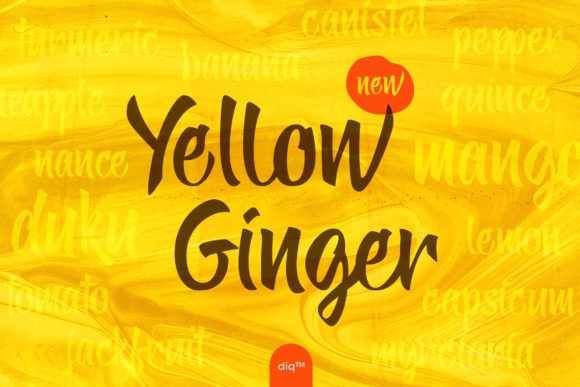
Prepare to be mesmerized by Yellow Ginger, a script font with an enchanting handwritten style. Its sharp lines and beautiful flow add a dash of sophistication to any design, making it the perfect choice for headers, signs, restaurant menus, product labels, prints, branding, and captivating social media posts.
Yellow Ginger's crisp, clear style ensures effortless readability, even at smaller sizes. Its elegant curves and playful flourishes bring a touch of vibrancy to your designs and leave a lasting impression on your audience. Whether you're creating a classy wedding invitation or a trendy flyer, Yellow Ginger will add a touch of understated luxury that sets your work apart.
With Yellow Ginger, you'll embark on a creative journey where your imagination is the only limit. Its versatility knows no bounds, allowing you to experiment with different design styles and themes. From classic and timeless to modern and edgy, Yellow Ginger seamlessly adapts to your vision and elevates your designs to new heights.
So, step into the world of Yellow Ginger and unleash your creativity. Whether you're a seasoned designer or just starting out, this font will become your trusted companion in crafting captivating visuals that speak volumes. Experience the beauty and versatility of Yellow Ginger today, and let your designs flourish like never before!